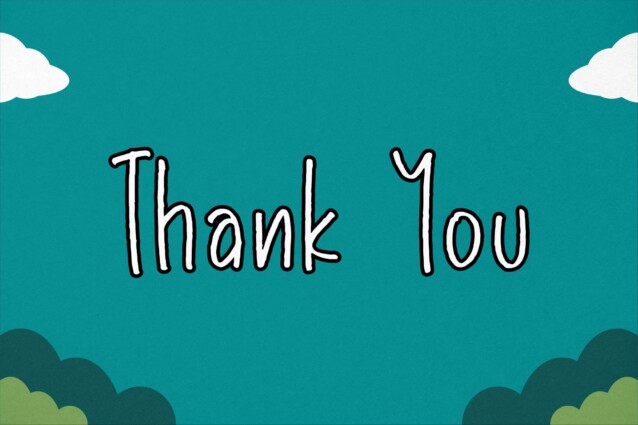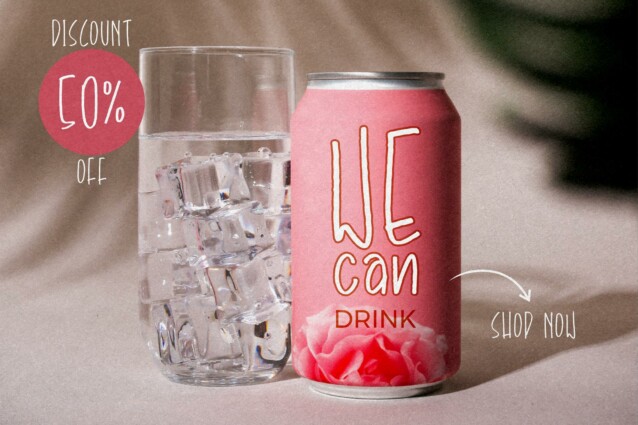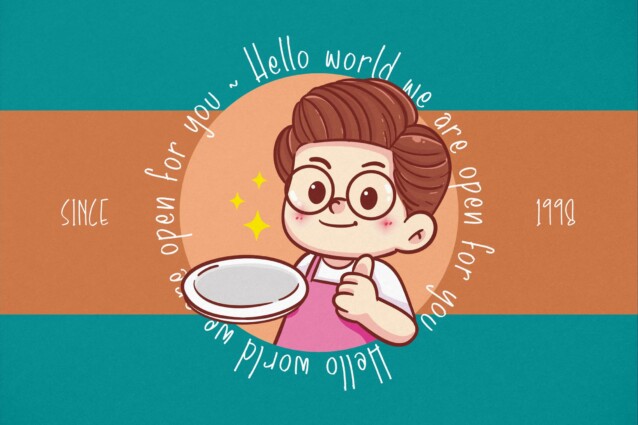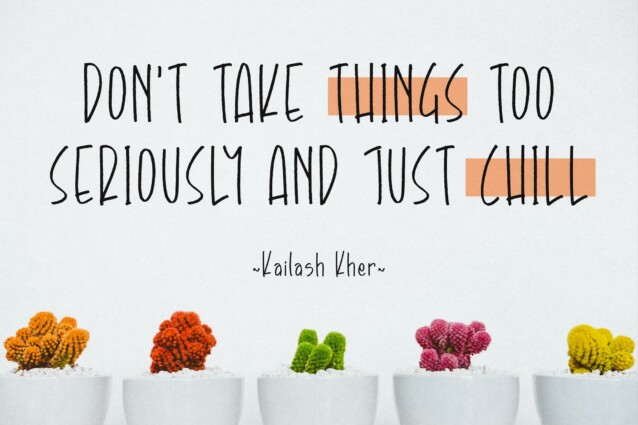
Routinery Halmonth Font is a Cute Sans Font, suitable for any projects such as: logos, branding projects, homeware designs, product packaging, mugs, quotes, posters, shopping bags, t-shirts, book covers, name card, invitation cards, greeting cards, label, photography, watermark, special events, and all your other lovely projects that need a beautiful script taste.